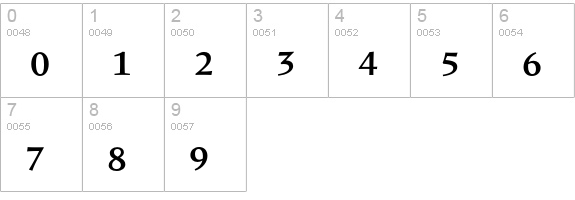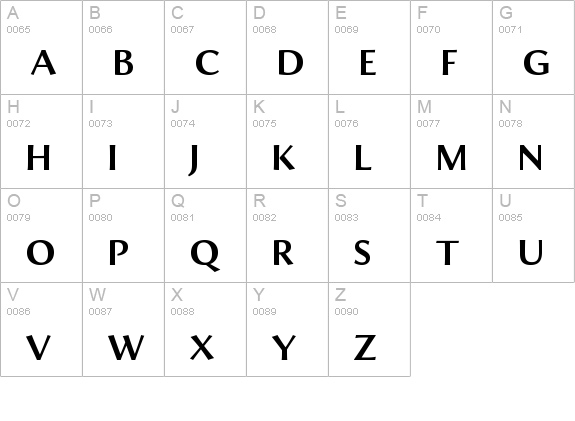
ShellSans-BoldTable is a versatile and bold font that is perfect for adding a touch of elegance and sophistication to any design project. Its clean lines and strong presence make it ideal for headlines, titles, and other display purposes. With its bold weight, this font demands attention and creates a powerful visual impact. The ShellSans-BoldTable font offers a unique and modern take on the classic sans-serif style. Its sturdy letterforms have been meticulously designed to ensure optimum legibility, even at small sizes. The bold weight adds an extra level of emphasis, making it perfect for creating eye-catching designs. One of the standout features of ShellSans-BoldTable is its versatility. It effortlessly adapts to any design style or concept, making it a go-to choice for designers in various industries. Whether you're working on a corporate project, a fashion campaign, or a magazine layout, this font has the flexibility to elevate your designs and capture attention. What sets ShellSans-BoldTable apart is not only its exceptional design but also its accessibility. This font is freely available to download at FontsMarket.com, making it easily accessible to designers and creatives around the world. The fact that it is free adds even more value, allowing you to create stunning designs without breaking the bank. In conclusion, ShellSans-BoldTable is a bold and versatile font that combines elegance with modernity. Its clean lines, strong presence, and bold weight make it perfect for creating impactful designs. With its free availability at FontsMarket.com, this font is a must-have for any designer looking to add a touch of sophistication to their projects.